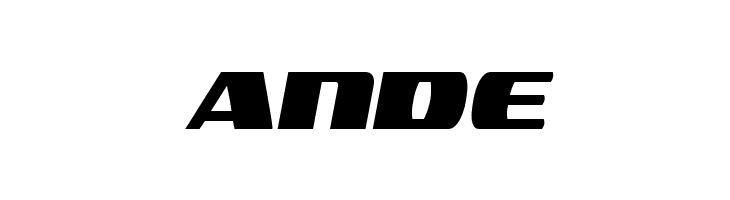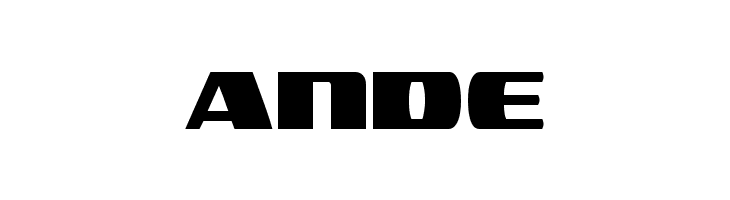
• AmericanTextOpti
A bold, angular blackletter font with a modern twist.
• AmericanTypewriHC
• AmericanWestern
A bold, cursive font with high contrast and dramatic flourishes.
• AmericanYouth
A playful handwritten font with tall, narrow letters and a casual style.
• Americorps
A bold, slanted font with a dynamic and modern style.
• Americorps 3D
A bold, 3D outlined font with a modern, geometric style.
• Americorps 3D Condensed
A bold, 3D, condensed font with outlined characters and a geometric style.
• Americorps 3D Condensed
A bold, 3D, condensed font with a modern geometric design.
• Americorps 3D Expanded
A bold, 3D, expanded font with geometric and angular design.
• Americorps 3D Extra-Condensed
A bold, 3D, extra-condensed font with outlined characters and a modern, angular style.
• Americorps 3D Regular
A bold, 3D font with a futuristic and dynamic style.
• Americorps Academy
A bold, slanted font with outlined characters and a modern, dynamic style.
• Americorps Academy Regular
A bold, dynamic font with a slanted, outlined style ideal for impactful designs.
• Americorps Bold
A bold, angular font with a dynamic slant and strong visual impact.
• Americorps Bold
A bold, slanted font with a modern and dynamic style.
• Americorps Bold Condensed
A bold, condensed font with a dynamic slant and tight spacing.
• Americorps Bold Condensed
A bold, condensed font with angular lines and a dynamic style.
• Americorps Bold Expanded
A bold, expanded, and italicized font with a modern, dynamic style.
• Americorps Bold Extra-Condensed
A bold, extra-condensed font with high contrast and dynamic style.
• Americorps Condensed
A bold, condensed font with a dynamic and modern style.
• Americorps Condensed